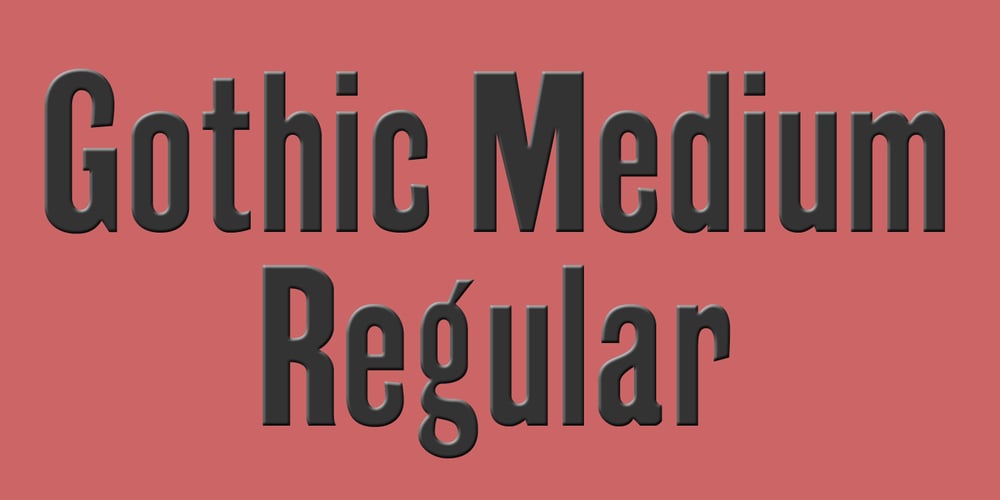
Gothic Medium Font Family was designed by Jordan Davies and published by Wooden Type Fonts. Gothic Medium contains 1 styles and family package options. A revival of one of the popular wooden type fonts of the 19th century, a very useful design for display, or text, somewhat geometric in form, a bit narrow.